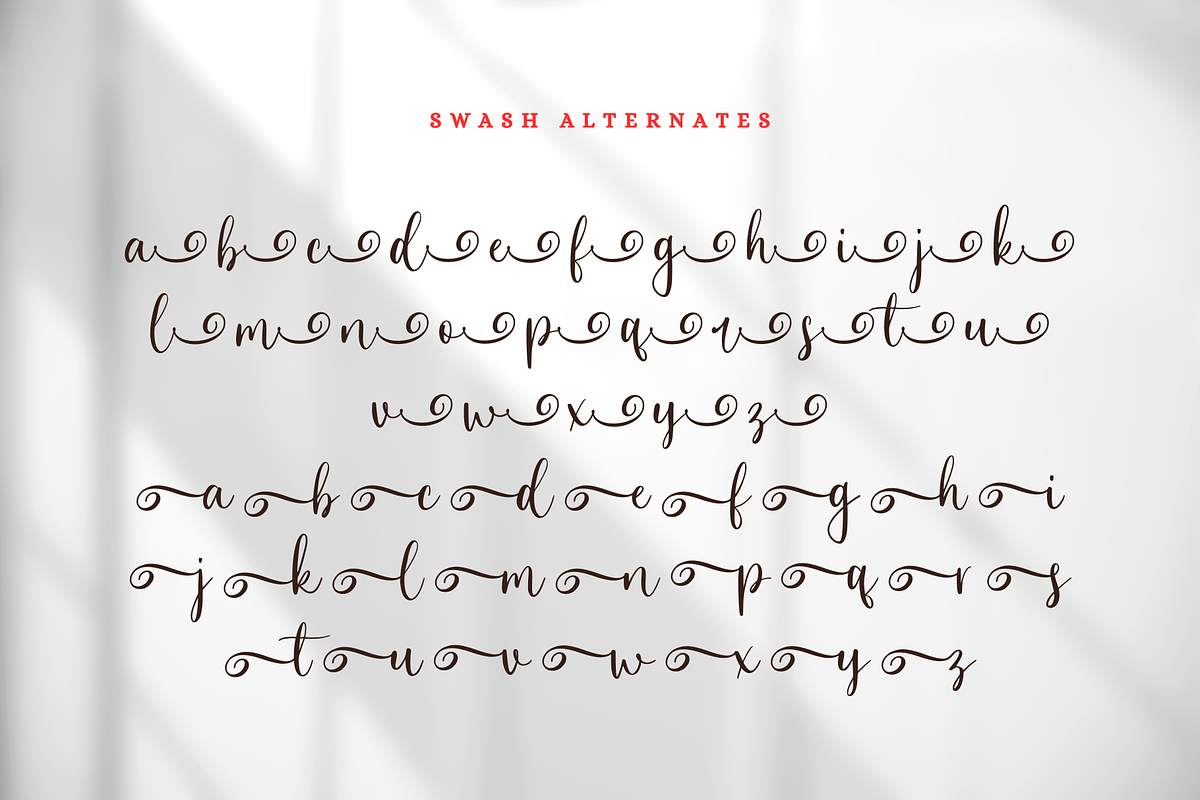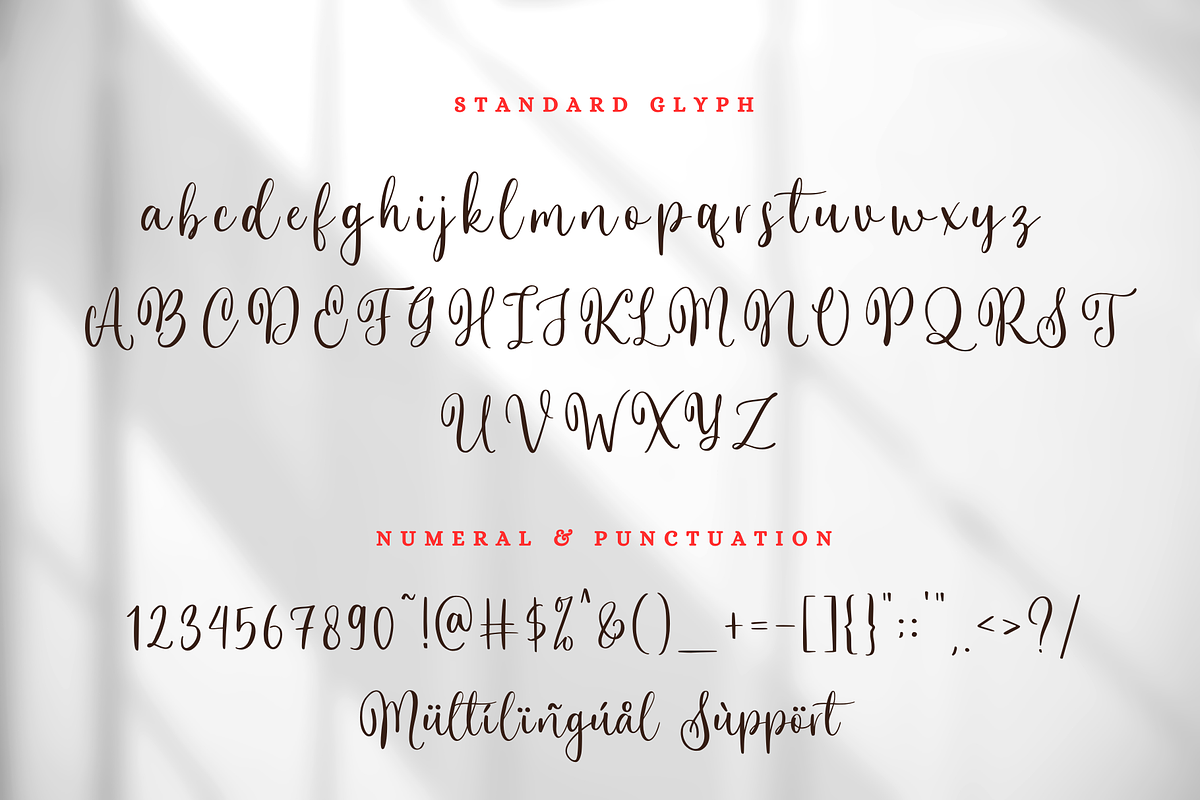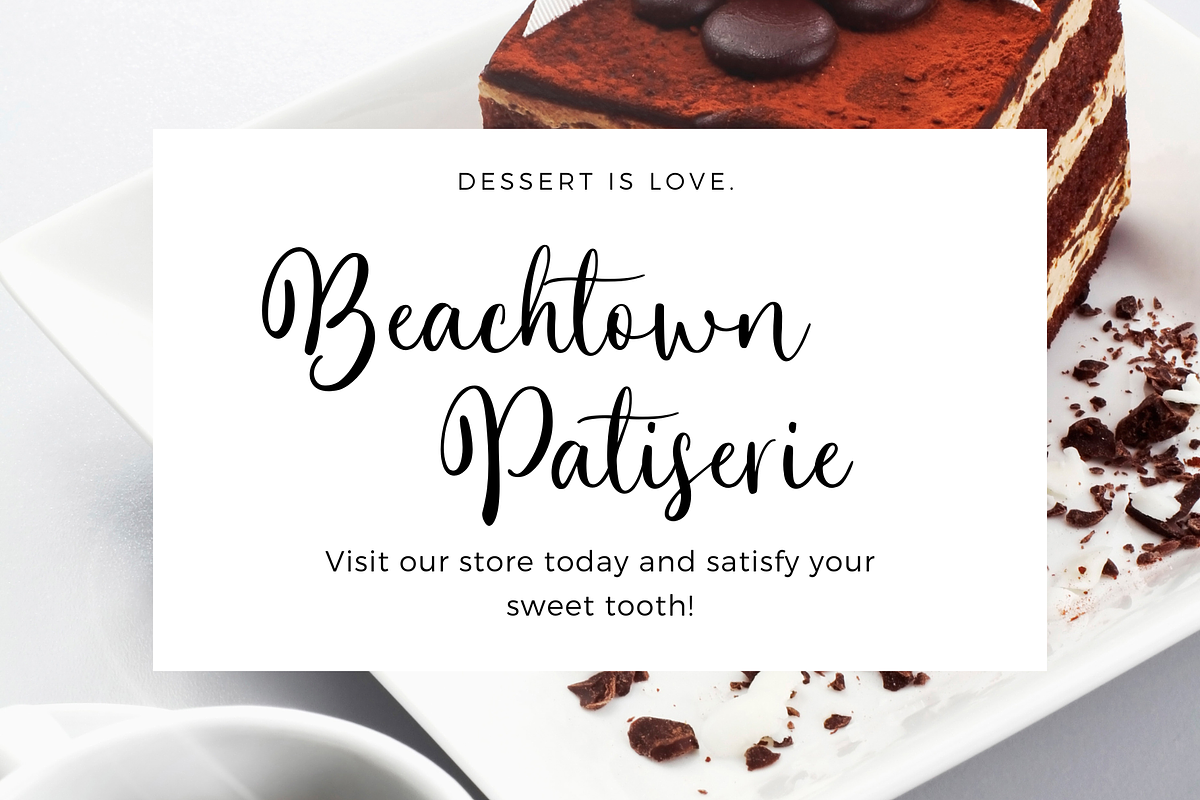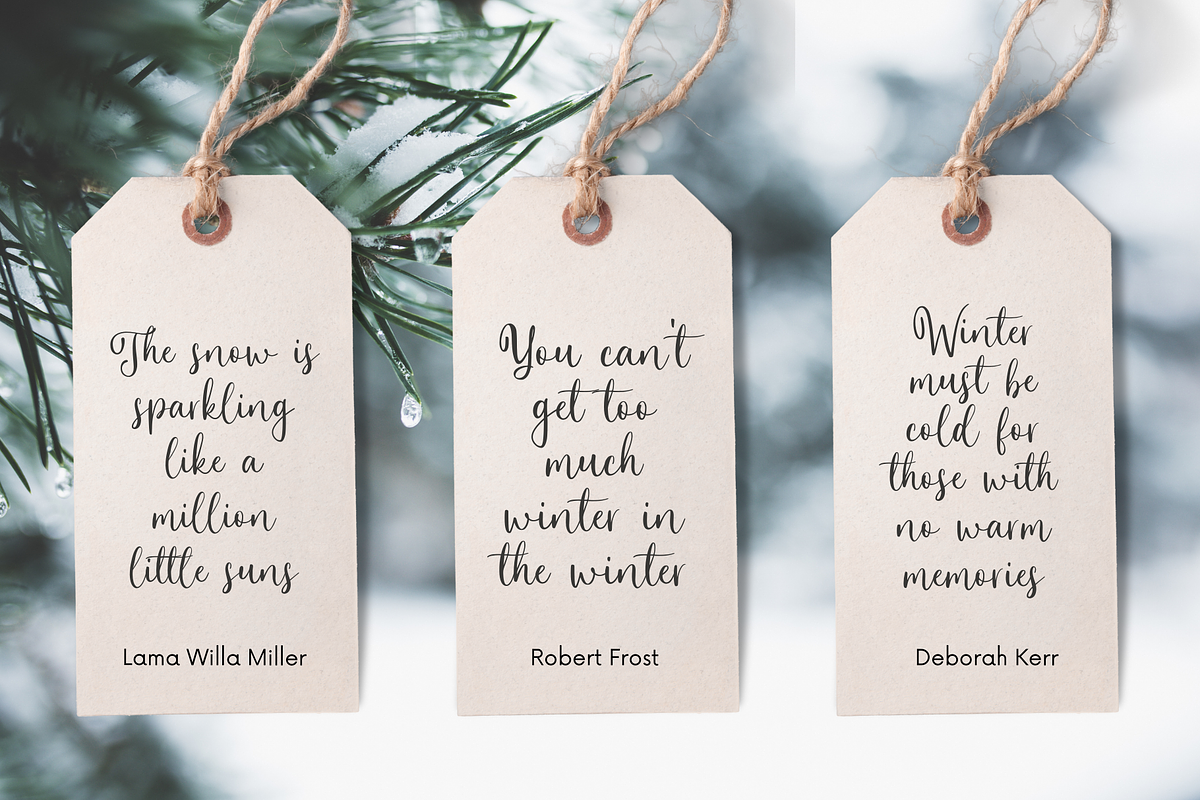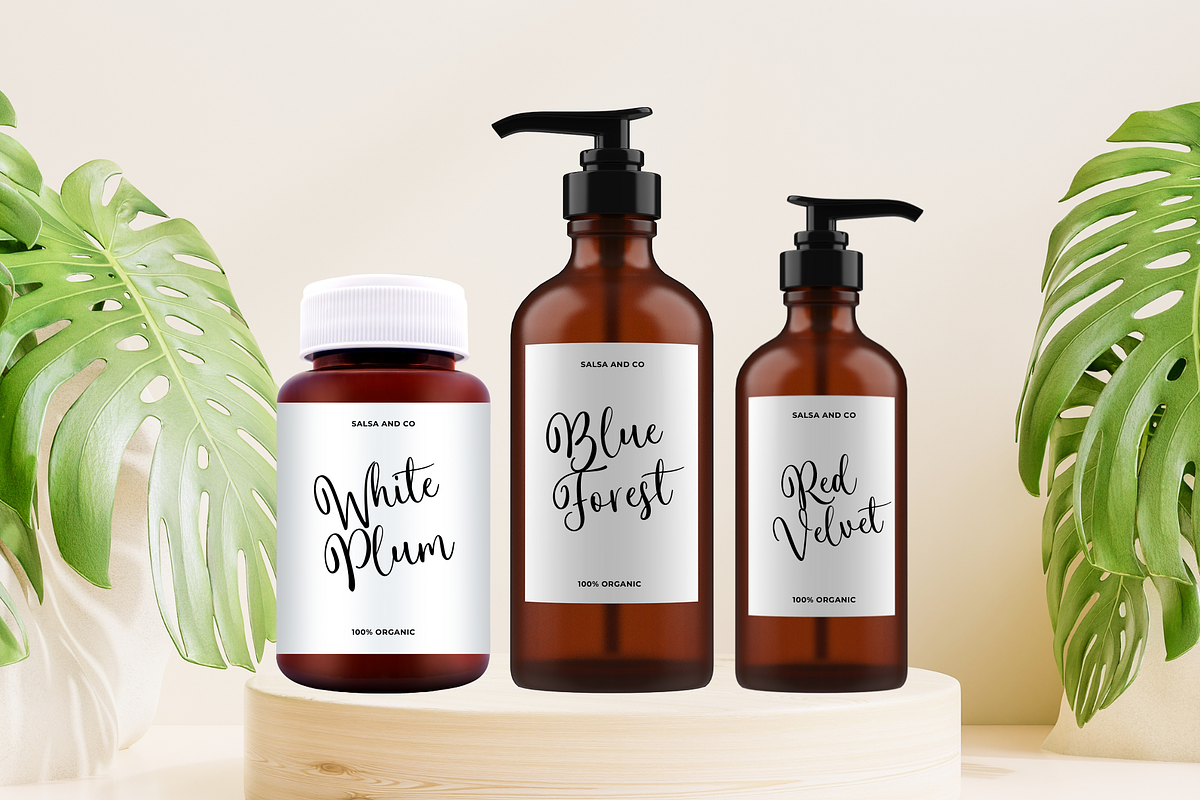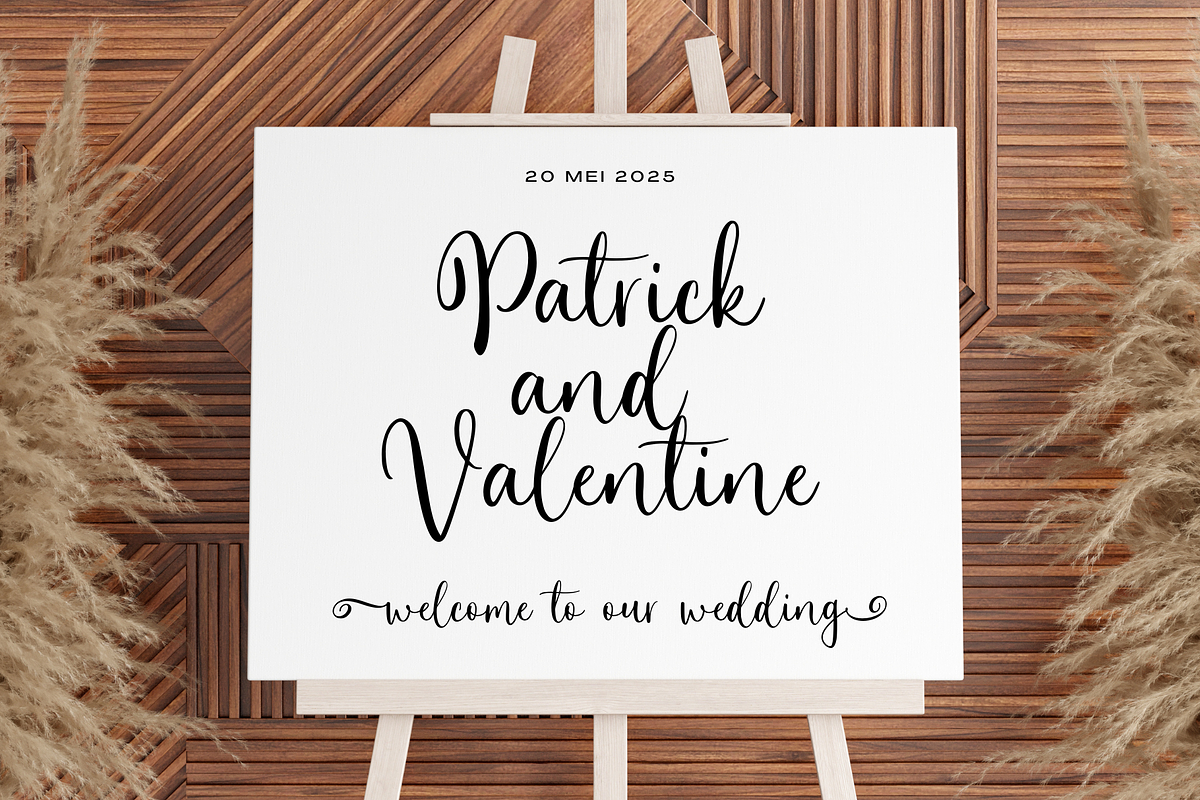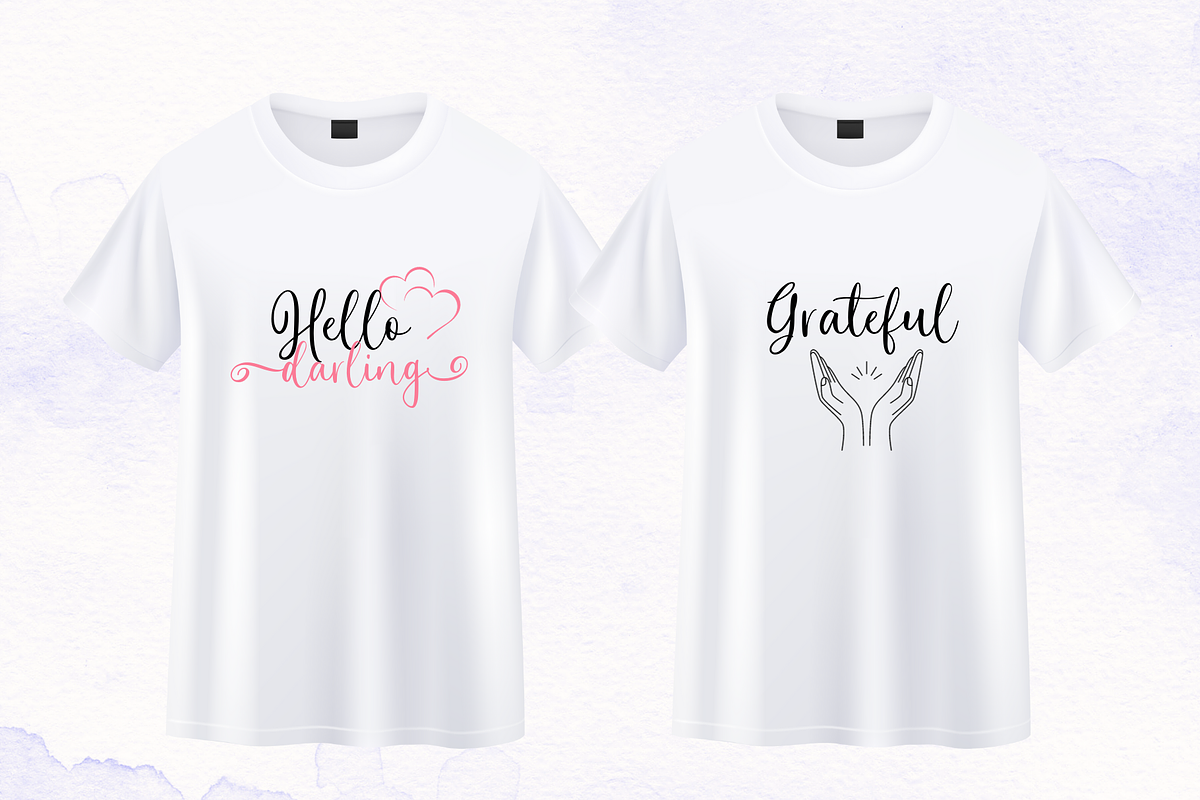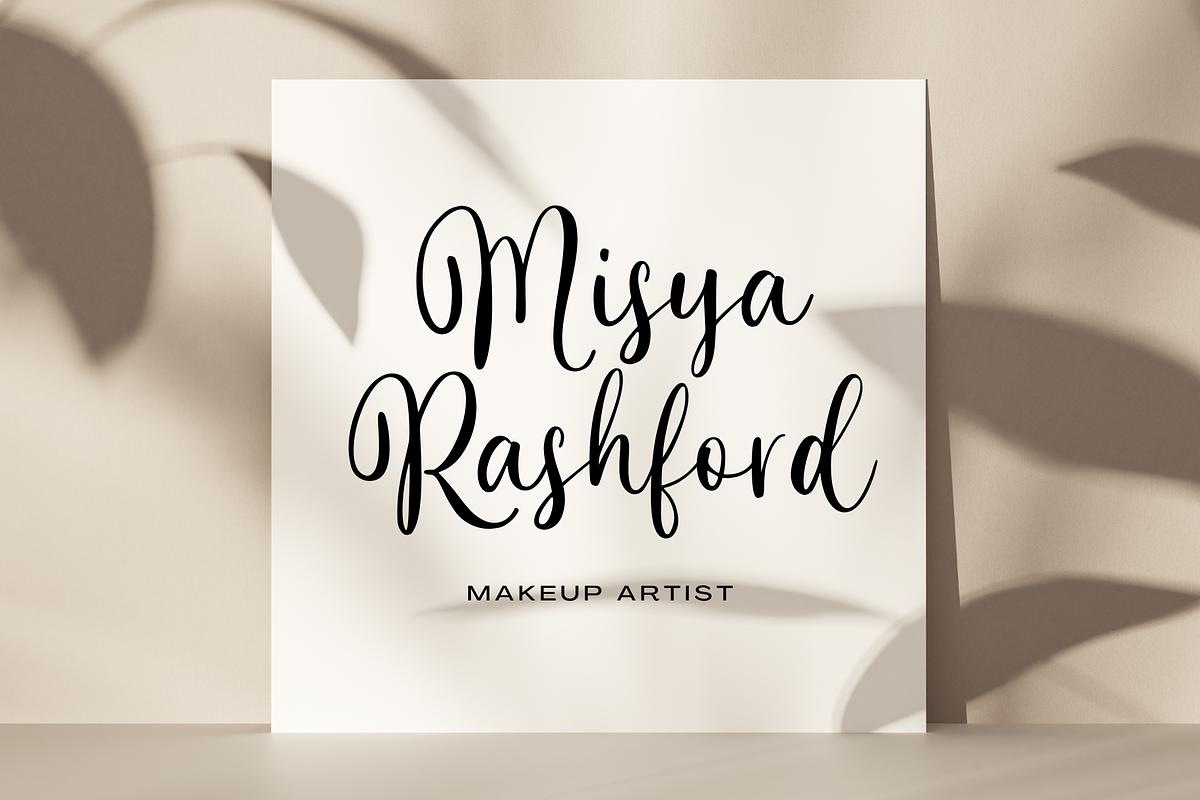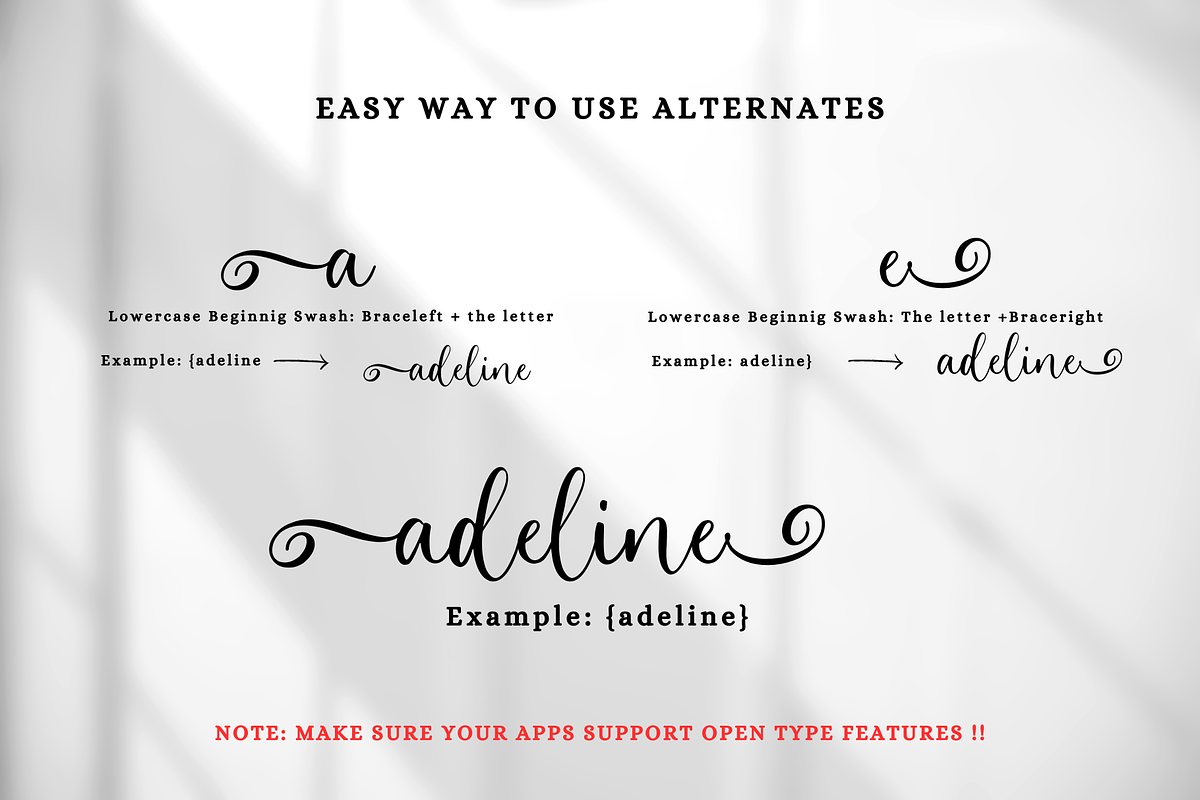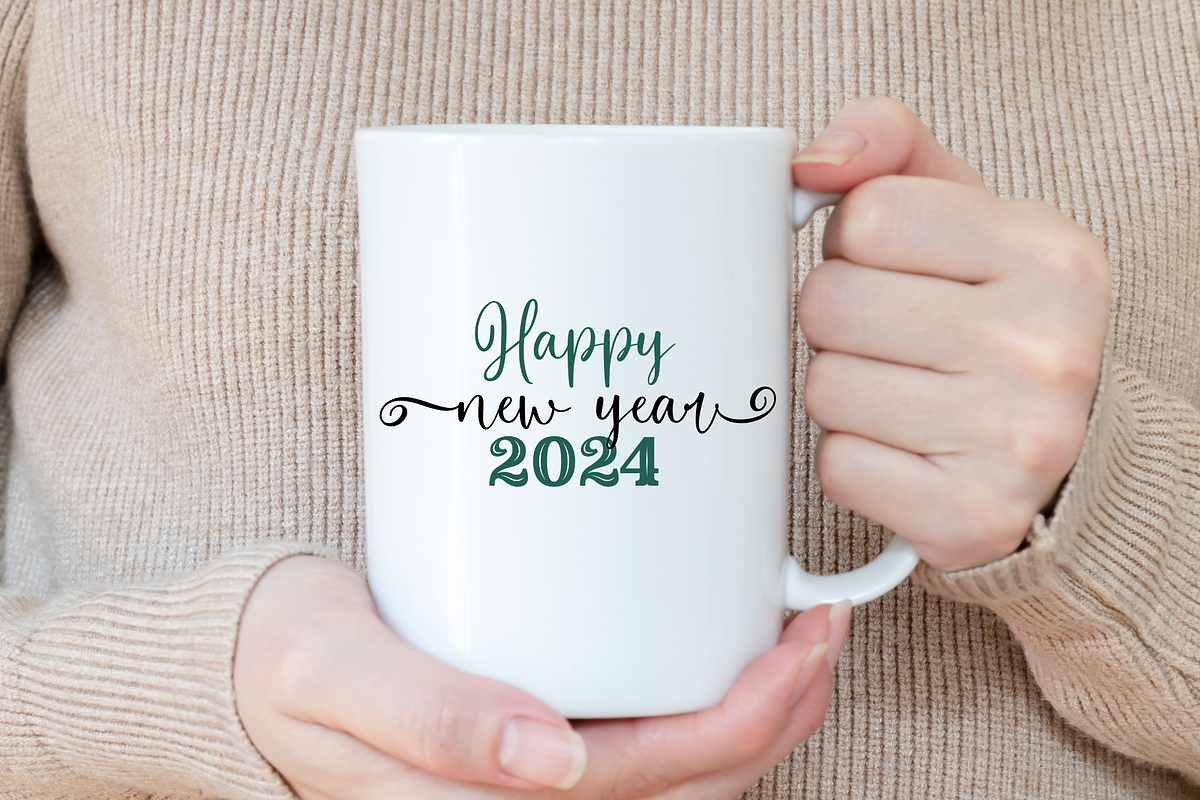
Winter Vista
"Step into the enchanting world of 'Winter Vista,' a graceful script font designed to capture the elegance of the winter season. With its flowing letterforms and delicate strokes, this font adds a touch of sophistication to your winter-themed projects. Ideal for invitations, holiday cards, or any design that calls for a blend of grace and wintery charm, 'Winter Vista' paints a picturesque scene with every stroke, evoking the serene beauty of a winter landscape in script form."
- Swash Alternates